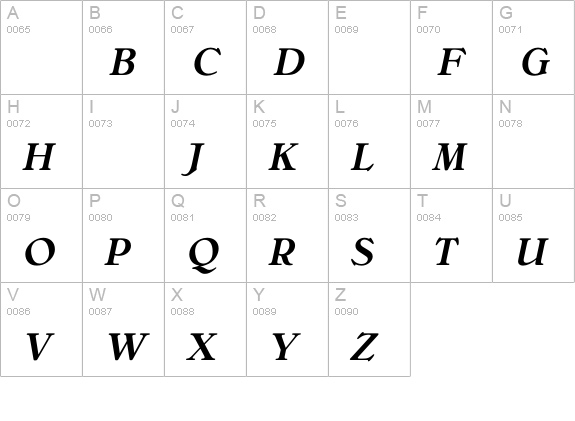
BelliniMediumItalic Font Details
Bellini Medium Italic font is a stylish and elegant typeface that exudes sophistication and charm. Its graceful slanted design adds a touch of personality to any project, making it perfect for headings, titles, and other prominent text elements. The flowing curves and delicate serifs of Bellini Medium Italic create a sense of movement and fluidity, enhancing the overall visual appeal of your designs. This versatile font is ideal for a wide range of design applications, from branding and advertising to editorial and packaging. Whether you're looking to add a touch of class to your website or create eye-catching print materials, Bellini Medium Italic is sure to make a lasting impression. Best of all, Bellini Medium Italic is free to download at FontsMarket.com, making it easily accessible for designers and creatives looking to elevate their projects with a touch of sophistication. Don't miss out on this beautiful typeface – download Bellini Medium Italic today and add a touch of elegance to your designs.